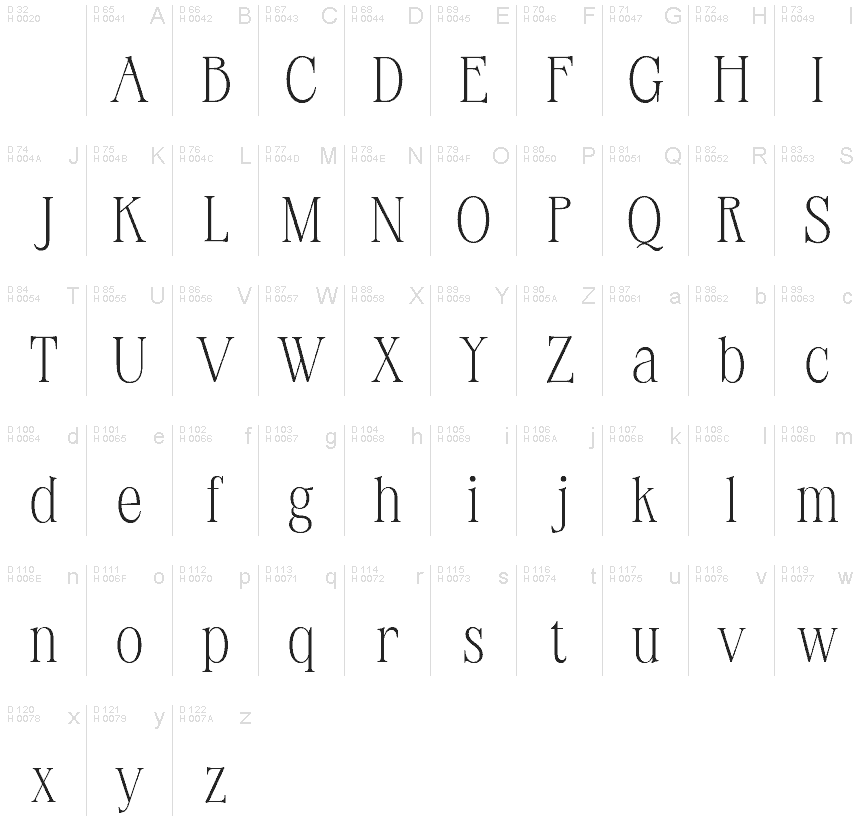
Kapvile Demo Regular
Kapvile font from Craft Supply Co is an elegant, refined light serif with a sophisticated look. The condensed structure integrates perfectly into a timeless, classy design style. Kapvile has a classical and aesthetic approach which reflects not only through letters but also its numerals.